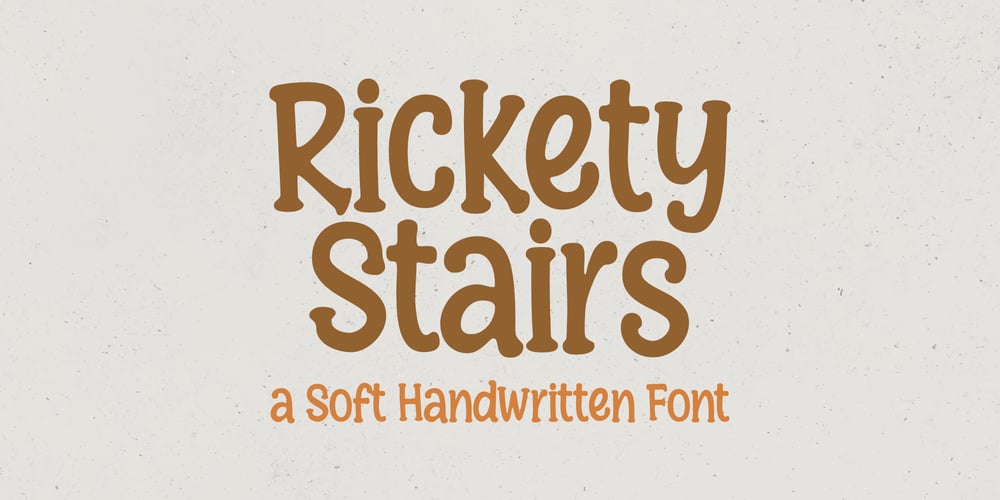
Rickety Stairs Font Family was designed by Ali Hamidi and published by Ali Hamidi. Rickety Stairs contains 1 styles and family package options. Rickety Stairs is a cute and neat handwritten font. This adaptable font will look great on a variety of design ideas. It will add a fun and friendly touch to each of your projects!